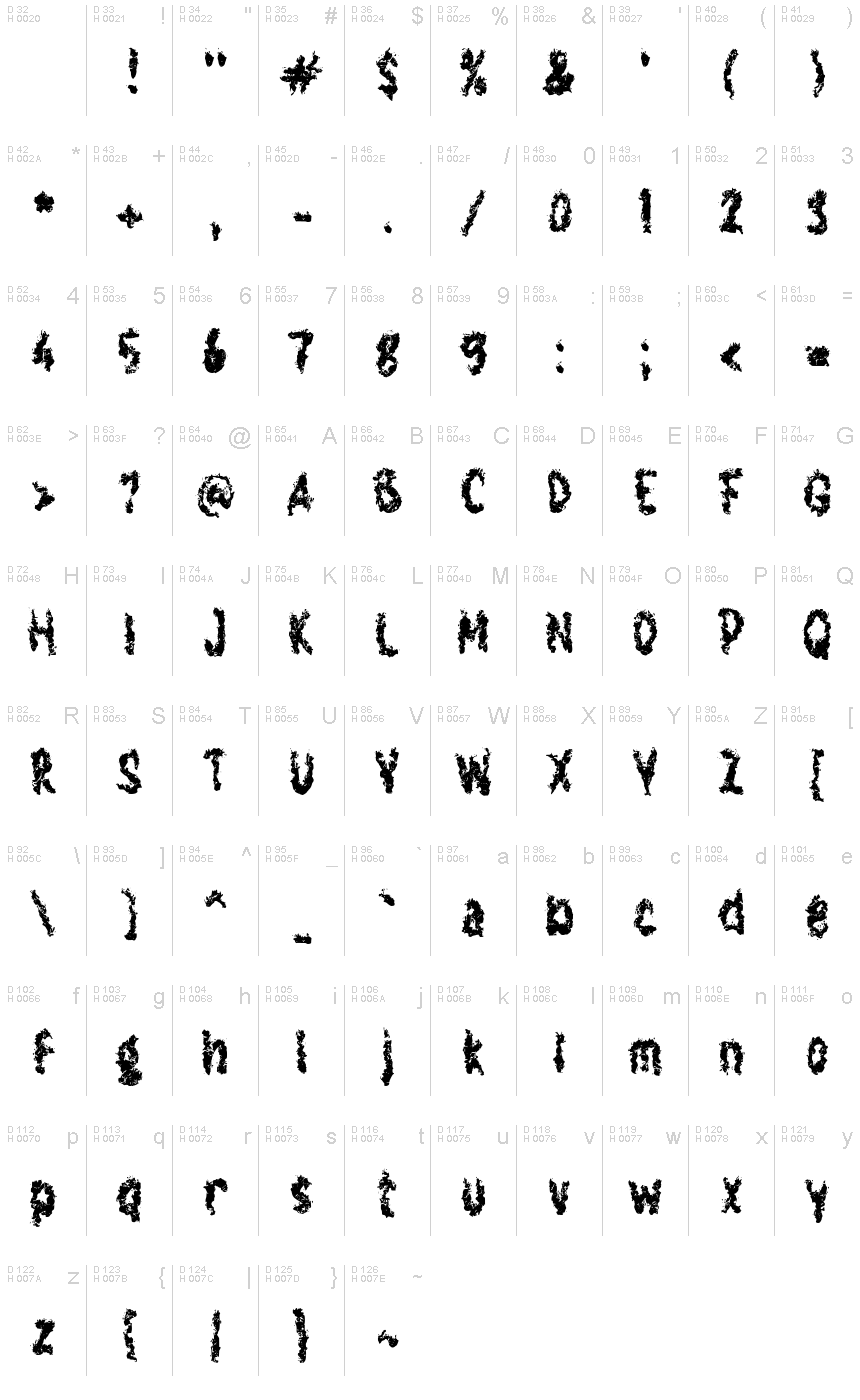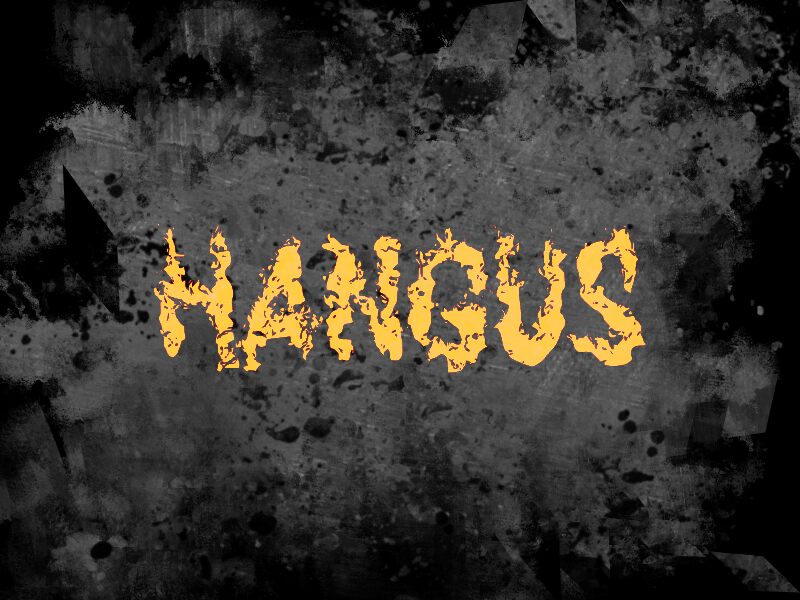
HANGUS
Hangus font by wep brings grunge texture, distressed components, and chaotic display to every level. It has irregular shapes yet features a consistent typeface infused in distressed irregular blend overall. Its edgy vibe stems from sandpapered edges constructing a strange atmosphere and an unusual display.
Try Hangus for posters, movie covers, t-shirts, website headers, product packages, digital ads, music album covers and more. Name your coffee brand or get your gaming presentation ready for the highest standards of each audience! Every viewer will be impressed by this free font.